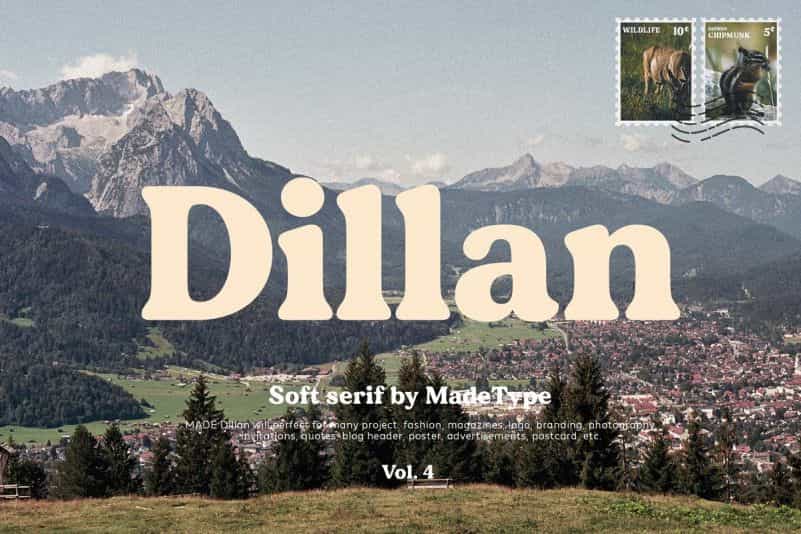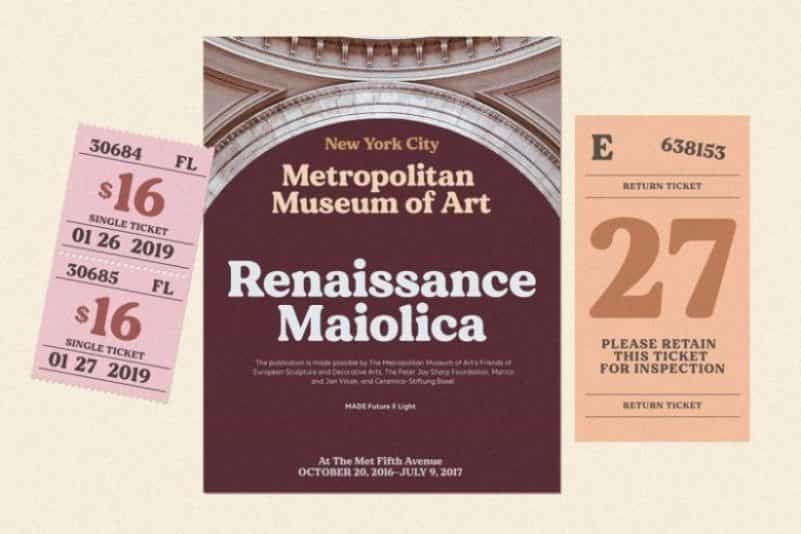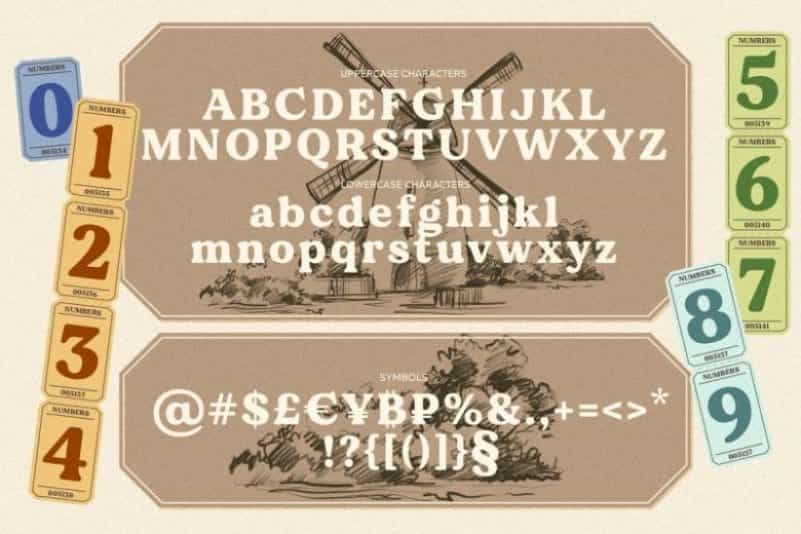
Discover Dillan Font, part of the Serif collection—a versatile and unique font perfect for adding a personal touch to your projects. Download it for free and enjoy crafting designs with style, from invitations to social media posts. This font is available exclusively for personal use, giving you the freedom to create without limits. Unlock your creativity with Dillan Font today!
Introducing Dillan Font. It is created and posted by MadeType. It is a display slab serif typeface that leans towards the humanist style. MADE Dillan will perfect for many project: Some of the areas that could be of interest include; fashion, magazines, logo and branding, photography, invitations, quotes, blog headers, posters, advertisements, postcards, and so on.